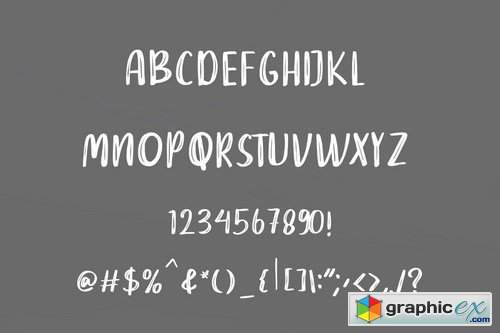
Dear Raina - Handcrafted Font
Dear Raina Font is a beautiful Handcrafted font. It will elevate a wide range of design projects to the highest level, be it branding, headings, wedding designs, invitations, signatures, logos, labels, and much more!